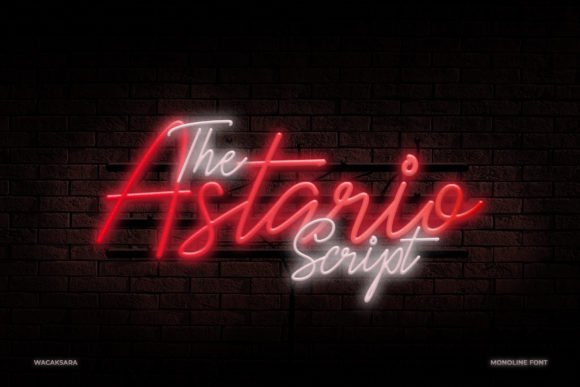
Astario Font: Where Handwritten Charm Meets Timeless Elegance
Have you ever found yourself scribbling down a quote or a loved one’s name in a beautiful, flowing script, only to wish you could preserve that handwritten moment forever? That’s exactly what the Astario Font is designed to do – capture the essence of handwritten charm and infuse it into your designs.
As a delicate and timeless handwritten font, Astario is perfect for adding a personal touch to your creations. From wedding invitations to business cards, this font brings a sense of warmth and sophistication to every project it’s used in. For designers, the Astario Font is a valuable asset, offering a unique way to express their creativity and make their designs stand out.
Astario Font Key Features
- Unique Characteristics: Astario Font features a unique blend of modern and vintage elements, with intricate details and ornate flourishes that set it apart from other fonts.
- Legibility: Despite its ornate design, Astario Font is highly legible, making it suitable for a wide range of applications, from body text to headlines.
- Style Variations: Astario Font comes in multiple styles, including Regular, Bold, Italic, and Bold Italic, providing users with a range of options to suit their design needs.
Astario Font Review
Overall, I think the Astario Font is a solid addition to any designer’s toolkit, but like any font, it has its strengths and weaknesses. ✨
- Unique Elegance: The Astario Font has a distinct, elegant feel that sets it apart from more common fonts. Its flowing curves and precise lines make it perfect for headings and titles.
- Legibility: Despite its decorative nature, the font remains highly legible, even at smaller sizes. This makes it suitable for body text as well.
- Flexibility: The font comes in a range of weights and styles, allowing designers to experiment with different looks and moods.
- Readability at Small Sizes: While the font is legible, it can become a bit fuzzy when scaled down to very small sizes. This may require designers to adjust font sizes carefully.
- Lack of Italic Styles: The Astario Font only comes in regular and bold styles, which can limit its use in certain contexts where italic text is required.
The Astario Font is a stylish and versatile addition to any designer’s toolkit. While it may have some limitations, its unique elegance and flexibility make it a great choice for designers looking to add some sophistication to their projects. With careful consideration of font sizes and styles, the Astario Font can be a powerful tool in any designer’s arsenal.
Tips for Getting the Most Out of Astario Font
To get the most out of Astario Font, consider the following tips:
- Use Astario Font for headings and titles to create a visually appealing design.
- Experiment with different font sizes and colors to create contrast and emphasis.
- Combine Astario Font with other fonts to create a unique and interesting design.
Common Use Cases for Astario Font
Astario Font is commonly used for:
- Brand logos and identity design.
- Main headings and titles to evoke a sense of grandeur and wonder.
Q: What is the recommended font size for Astario Font?
The recommended font size for Astario Font is between 12pt and 24pt. At smaller font sizes, the font may appear too thin or delicate, while at larger font sizes, it may appear too bold or overpowering. You can adjust the font size to suit your design needs, but keep in mind that the font’s readability and legibility may be affected.